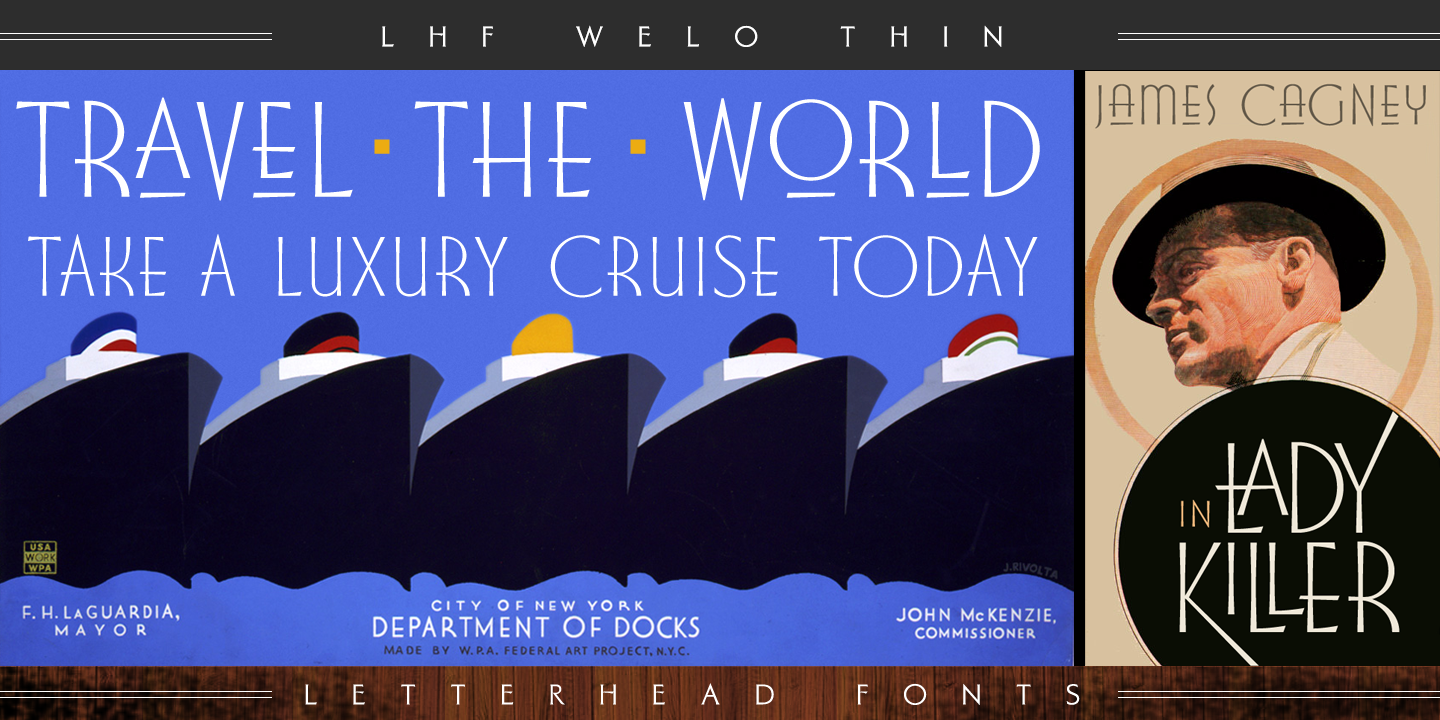
LHF Welo Thin Font is perfect for minimalist fashion brands, elegant architecture firms, sophisticated jewelry designers, high-end beauty salons, refined art galleries, luxury spa experiences, and contemporary lifestyle magazines. This delicate typeface embodies graceful simplicity and refined elegance, bringing subtle sophistication and ethereal beauty to any design project celebrating understated luxury and timeless aesthetic refinement.
What makes LHF Welo Thin Font exciting is its exquisite balance of delicate elegance and contemporary sophistication that perfectly captures the essence of refined minimalism and luxury simplicity. The font features ultra-thin letterforms with precise proportions and subtle geometric refinement that evoke both modern architectural precision and timeless elegance. Its graceful character appeals to sophisticated audiences while maintaining exceptional readability for both luxury branding materials and high-end editorial applications.
The LHF Welo Thin Font family includes ultra-light to regular weights with complementary italic variations and minimalist ornamental elements. The character set features elegant ligatures, luxury symbols, refined alternates, and sophisticated decorative accents that enhance the font's premium appeal. Advanced OpenType features provide creative flexibility for international luxury brands and multilingual high-end fashion applications.
Whether you're designing luxury fashion brands, creating sophisticated editorial materials, or developing refined lifestyle content, LHF Welo Thin Font Free Download provides exceptional elegance and versatility. This graceful typeface transforms ordinary text into sophisticated luxury experiences that communicate refined taste while establishing prestigious brand recognition in competitive luxury fashion and high-end lifestyle marketplaces.